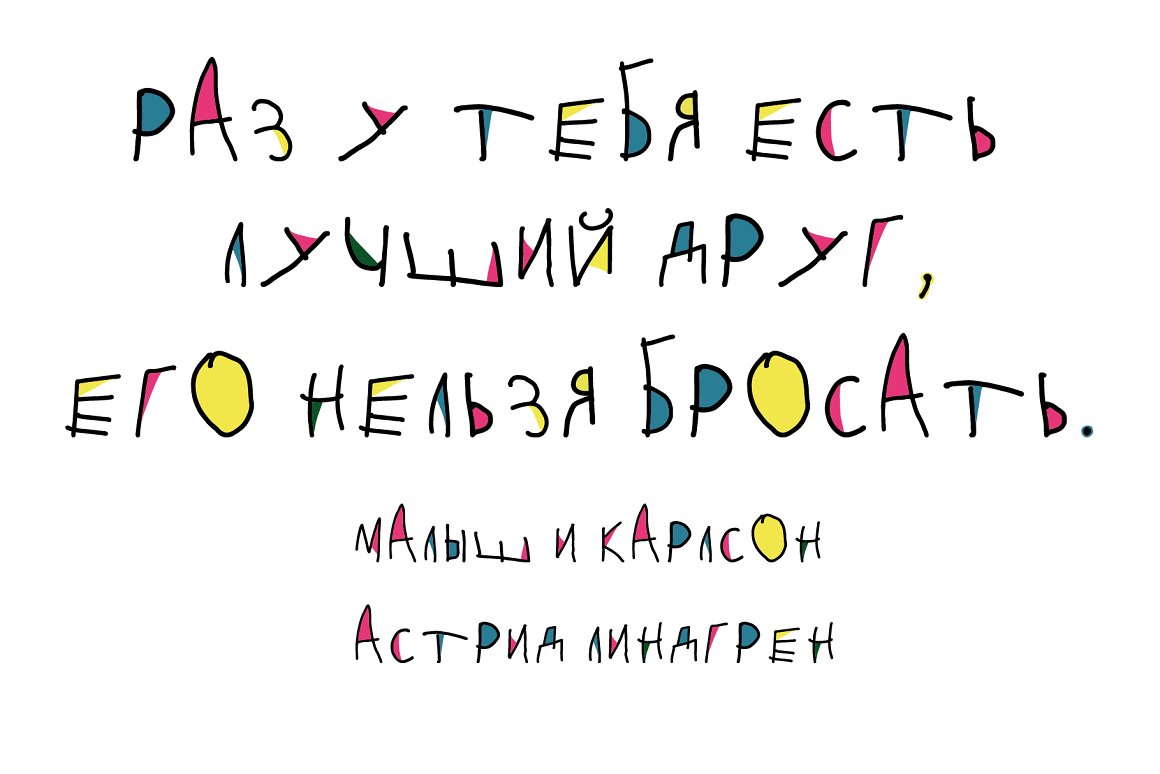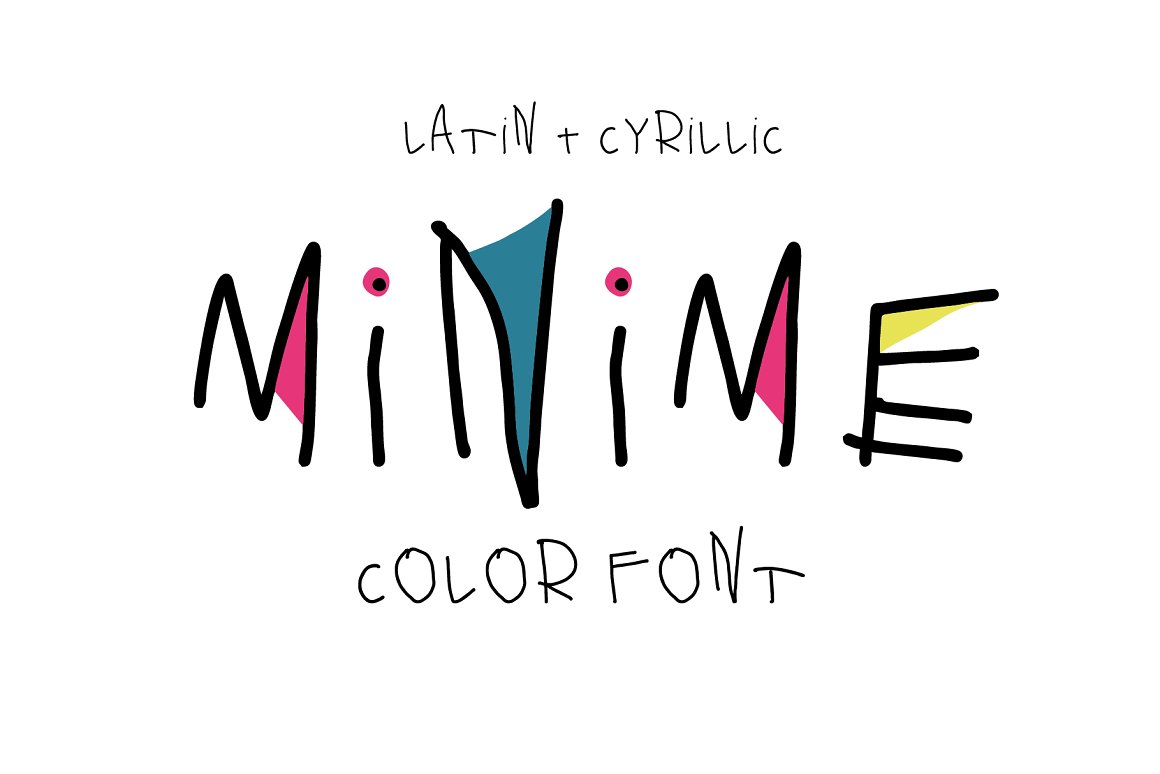
Minime - color OpenType-SVG font with Latin and Cyrillic letters! It's a fun and cute font! This font work nicely for all sorts of things including t-shirt design, typographic art, social media images and so much more!
Font features: Standard characters A-Z, 0-9,and punctuation + classic version for the Latin Basic and Western European set, Cyrillic А-Я set. Thanks and Enjoy!